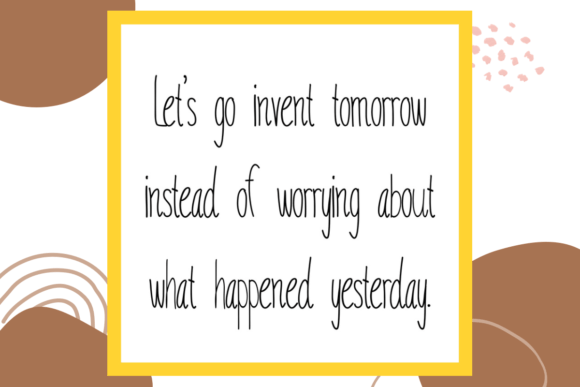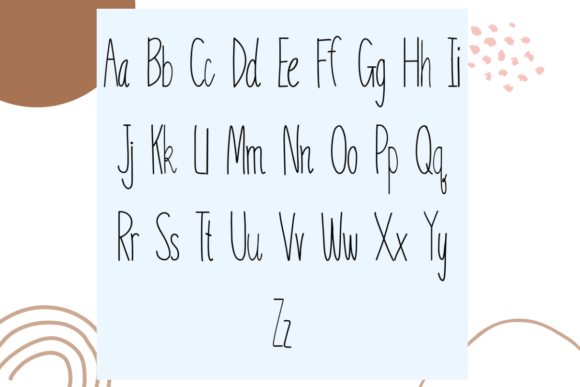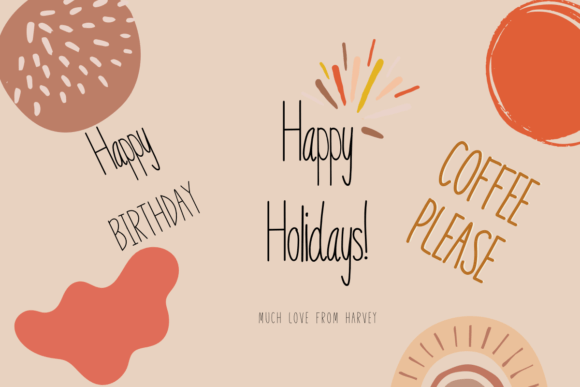
Introduction to Love Wildflower Font
Love Wildflower font is a sweet and friendly handwritten display font.
Cute and fun, this font is ideal for crafts, digital design, presentation, or writing wedding invitations, cards, or any other design that might need a fun touch It is ideal for use in school for both teachers and students.
Key Features of Love Wildflower Font
Why Choose Love Wildflower Font?
Love Wildflower Font offers exceptional quality and versatility, making it a valuable addition to your design toolkit. Whether you’re creating for personal projects or commercial use, Love Wildflower Font delivers professional results.